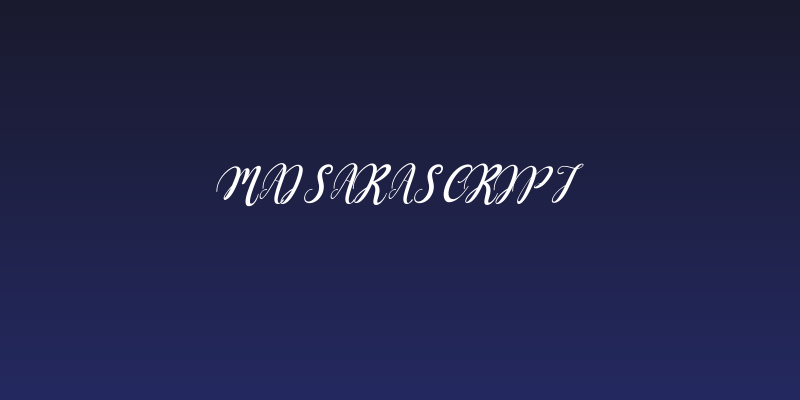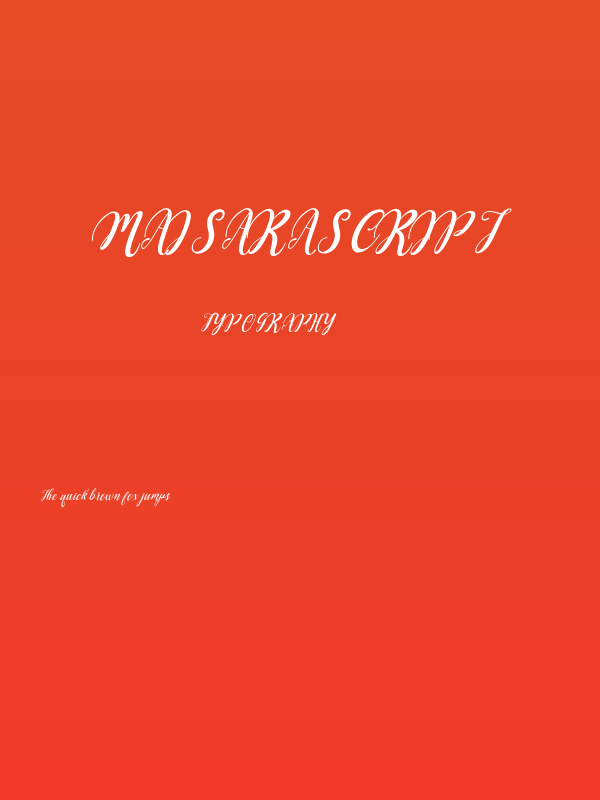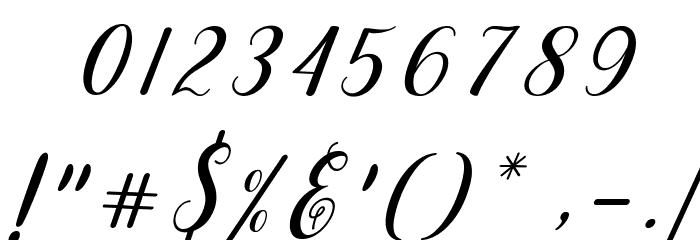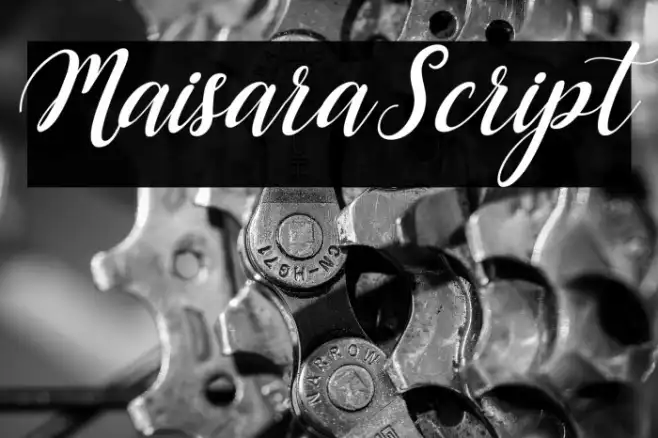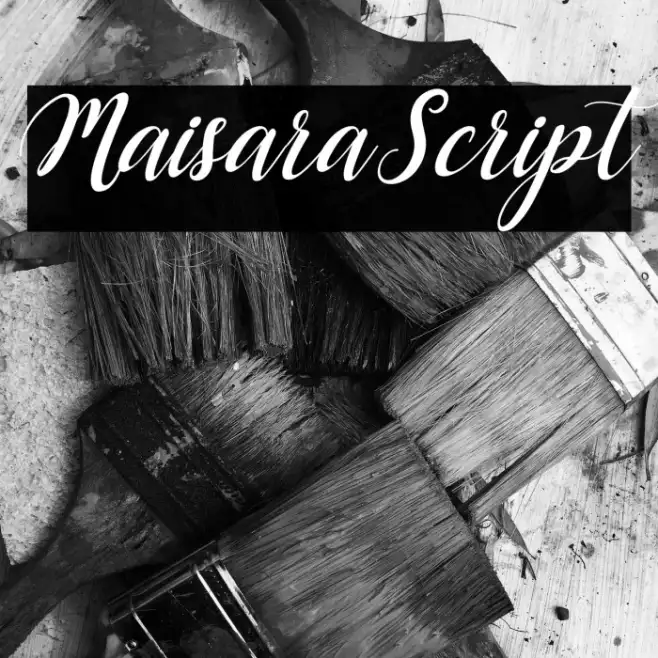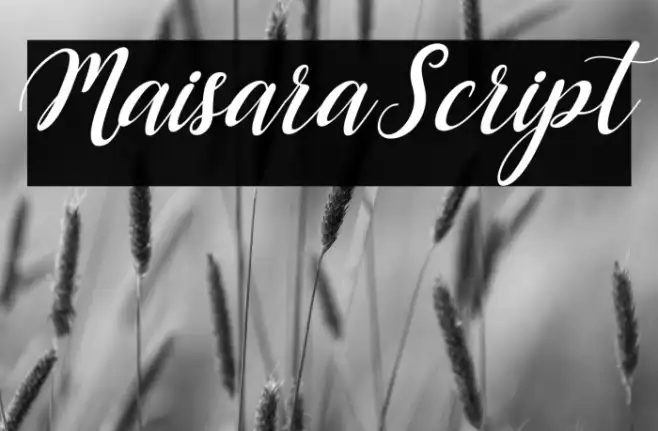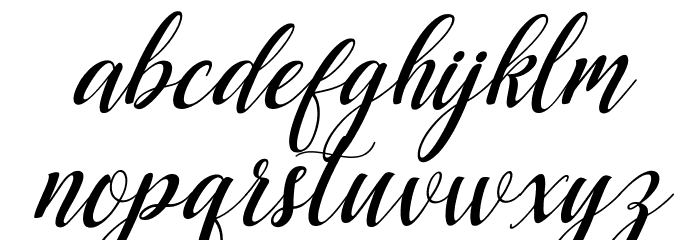
MaisaraScript Font
MaisaraScript Description
This elegant script font features flowing, cursive letterforms with a sophisticated and graceful appearance. The uppercase letters are bold and slightly slanted, with intricate loops and swashes that add a touch of flair. The lowercase letters maintain a consistent style, with smooth, connected strokes that enhance readability while preserving the decorative nature of the font. The numerals are styled to match the script's overall aesthetic, with a slight slant and elegant curves. Special characters are thoughtfully designed to complement the letters, ensuring a cohesive look across all text. This font is perfect for projects that require a touch of elegance and sophistication, such as wedding invitations, branding, or high-end product packaging.
| Use Case | Headlines, Invitations, Branding |
| Proposed Projects | Ideal for wedding invitations, luxury branding, and elegant product packaging. |